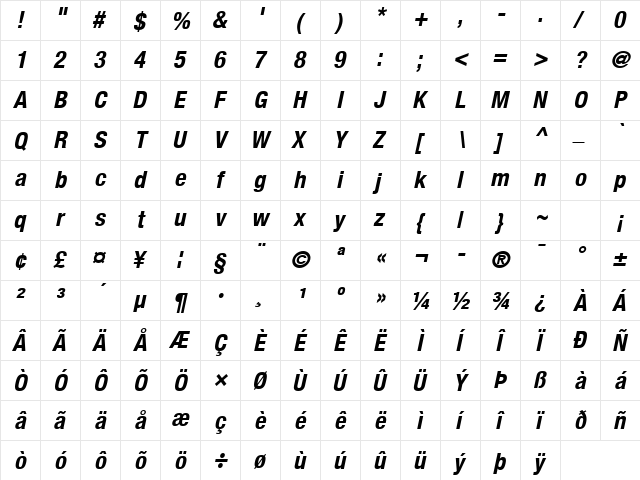
Helvetica Neue LT Com 77 Bold Condensed Oblique Font Preview
| Style | 77 Bold Condensed Oblique |
| Foundry | Linotype GmbH |
| Designer | Linotype Design Studio |
Design Context for Helvetica Neue LT Com Typeface
Helvetica Neue LT Com takes a measured approach to typography — its balanced proportions and neutral character make it a reliable workhorse for both digital and print work. Its italic angle brings a sense of urgency and motion to the letterforms. Its bold stroke weight gives it real presence on the page. The condensed width makes it efficient for tight spaces without sacrificing legibility.
Pro Tip: Use Helvetica Neue LT Com for emphasis, pull quotes, and subheadings where its slanted energy can add rhythm to the layout.